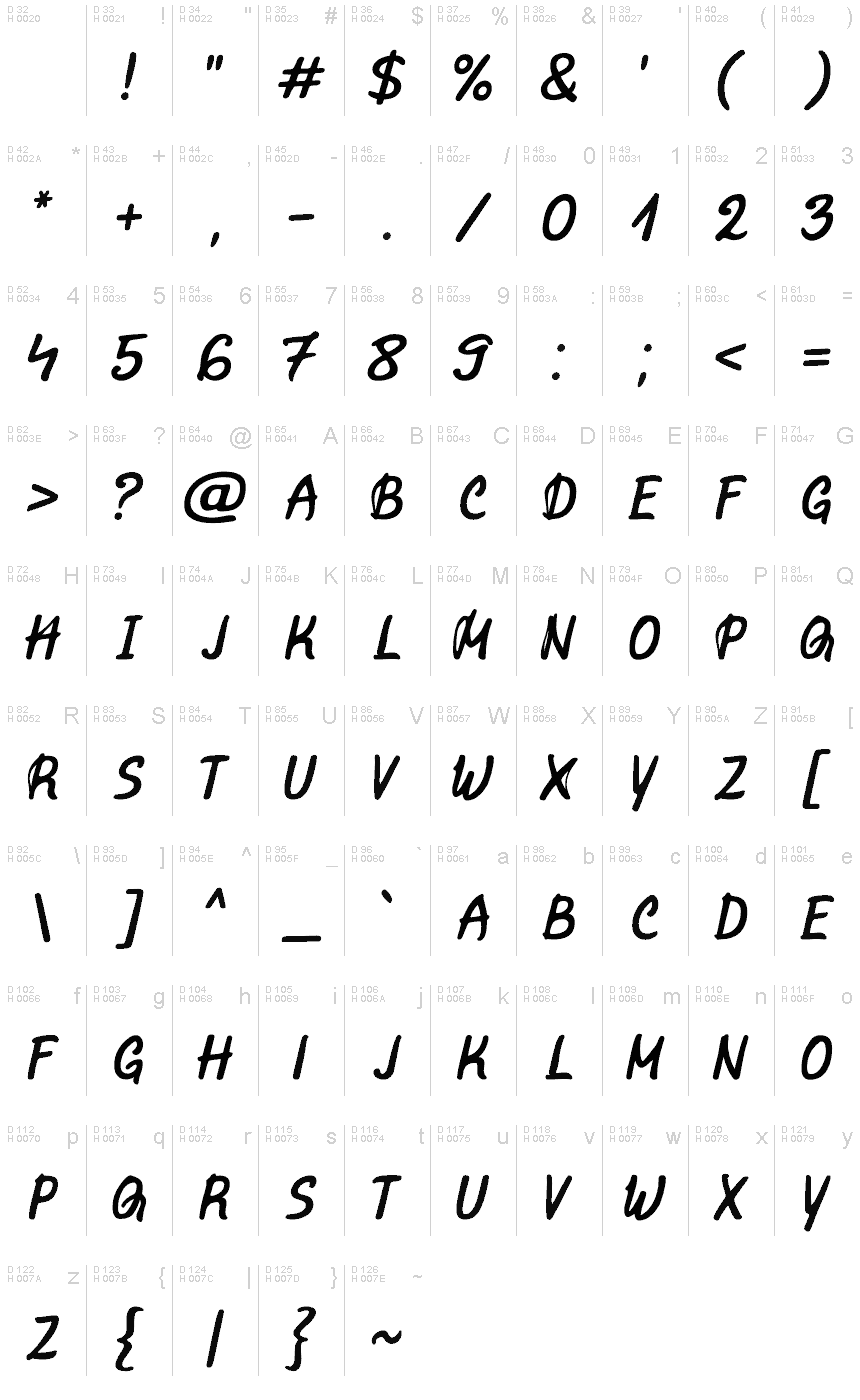
Marvelous Rex Italic
Marvelous Rex is a captivating hand-drawn typeface that exudes the dynamic energy of comic book lettering. Crafted by the talented team at Pilcrowd, this font boasts a whimsical, script-inspired aesthetic that effortlessly blends the playful and the bold. With its striking vertical strokes and fluid, expressive curves, Marvelous Rex invites the viewer to embark on a visual adventure, capturing the essence of vibrant storytelling.
This versatile font shines in a variety of design applications, making it an excellent choice for eye-catching headers, impactful branding, and captivating editorial layouts. Its unique character lends itself seamlessly to projects that require a touch of playfulness and a sense of dynamic energy, from book covers to packaging designs, and from promotional materials to digital interfaces.